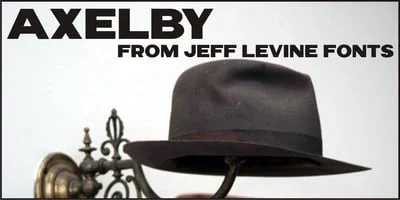
Axelby JNL Font
Axelby JNL Font excels in retro design applications including classic car show posters, vintage garage signage, old-school diner branding, automotive restoration shop materials, retro gas station graphics, nostalgic Route 66 merchandise, classic motorcycle club logos, vintage racing event promotions, Americana-themed restaurants, and heritage automotive museums. This authentic typeface brings genuine period character to contemporary projects.
What makes Axelby JNL Font truly exciting is its faithful reproduction of mid-century American automotive lettering with modern digital precision. The font features bold, streamlined letterforms with characteristic proportions that evoke chrome bumpers, neon signs, and classic car culture. Its nostalgic appeal and authentic vintage character make it perfect for brands celebrating American automotive heritage, classic design aesthetics, and the golden age of motoring.
The Axelby JNL Font family typically includes Regular weight with potential variations in spacing and alternate characters that reflect period signage styles. These options provide designers with authentic vintage styling while maintaining excellent readability for both nostalgic and contemporary applications across various media formats.
Whether you're creating automotive heritage branding, designing classic car event materials, or developing Americana-themed campaigns, Axelby JNL Font delivers the genuine vintage character and automotive authenticity that classic projects require. Its exceptional period accuracy and nostalgic charm make it invaluable for designers seeking to create memorable, heritage-inspired designs that honor the golden era of American automotive culture and roadside Americana.